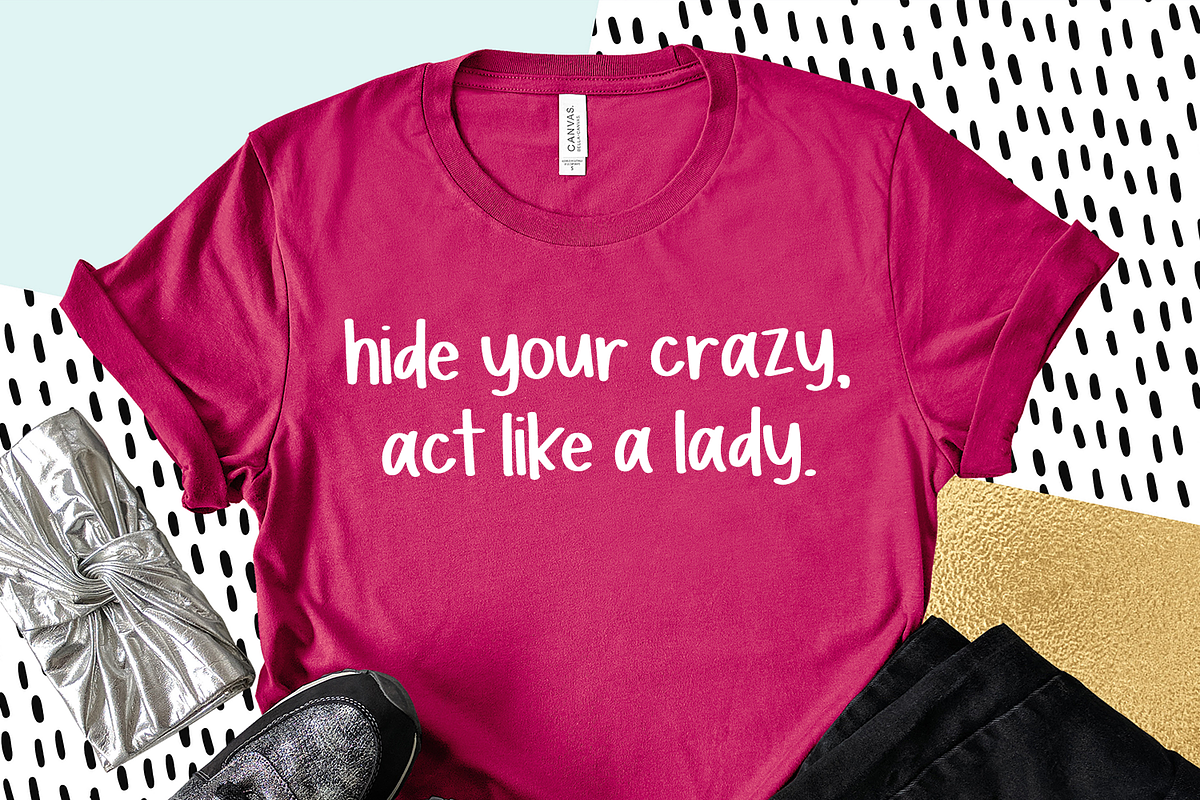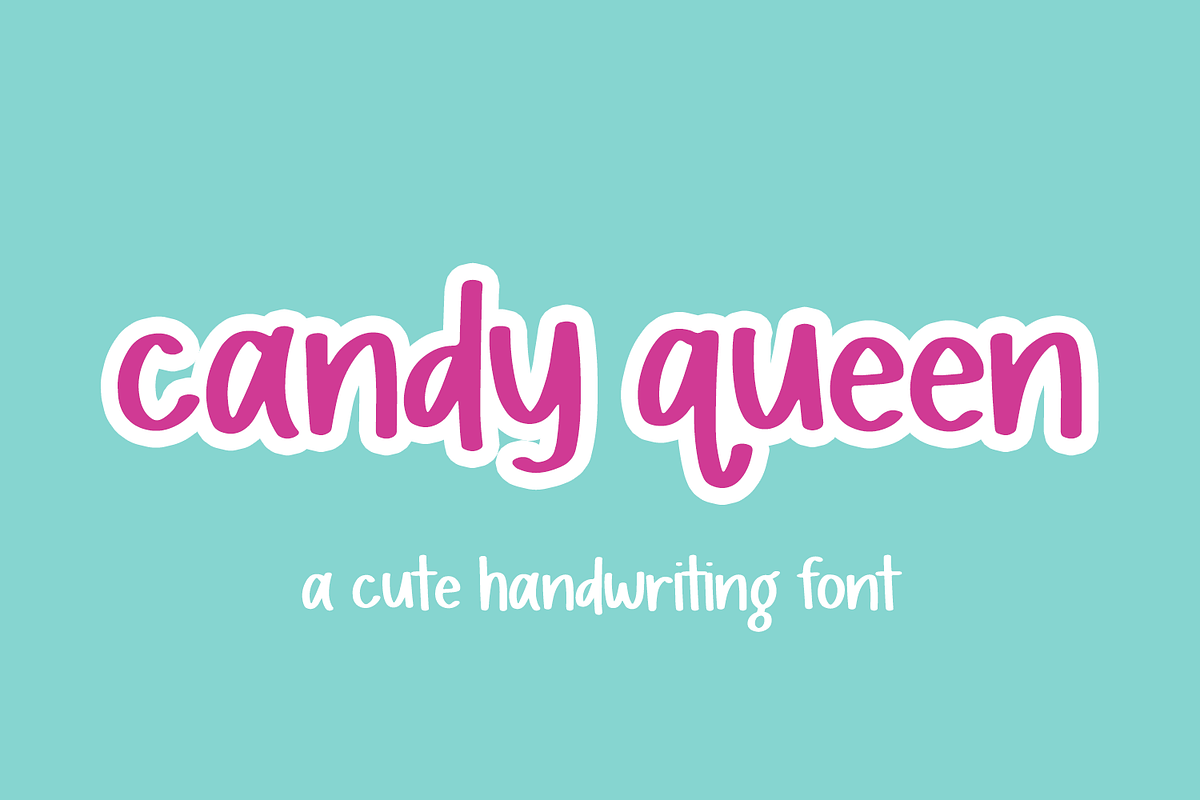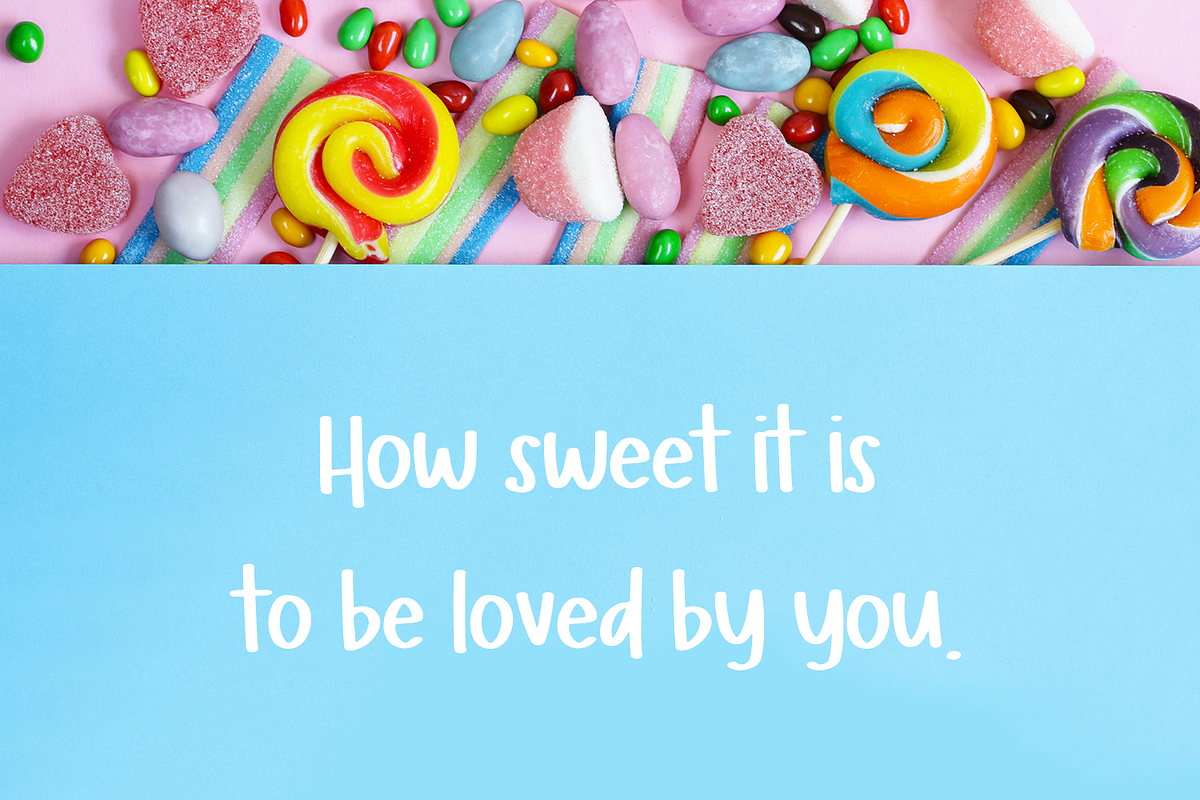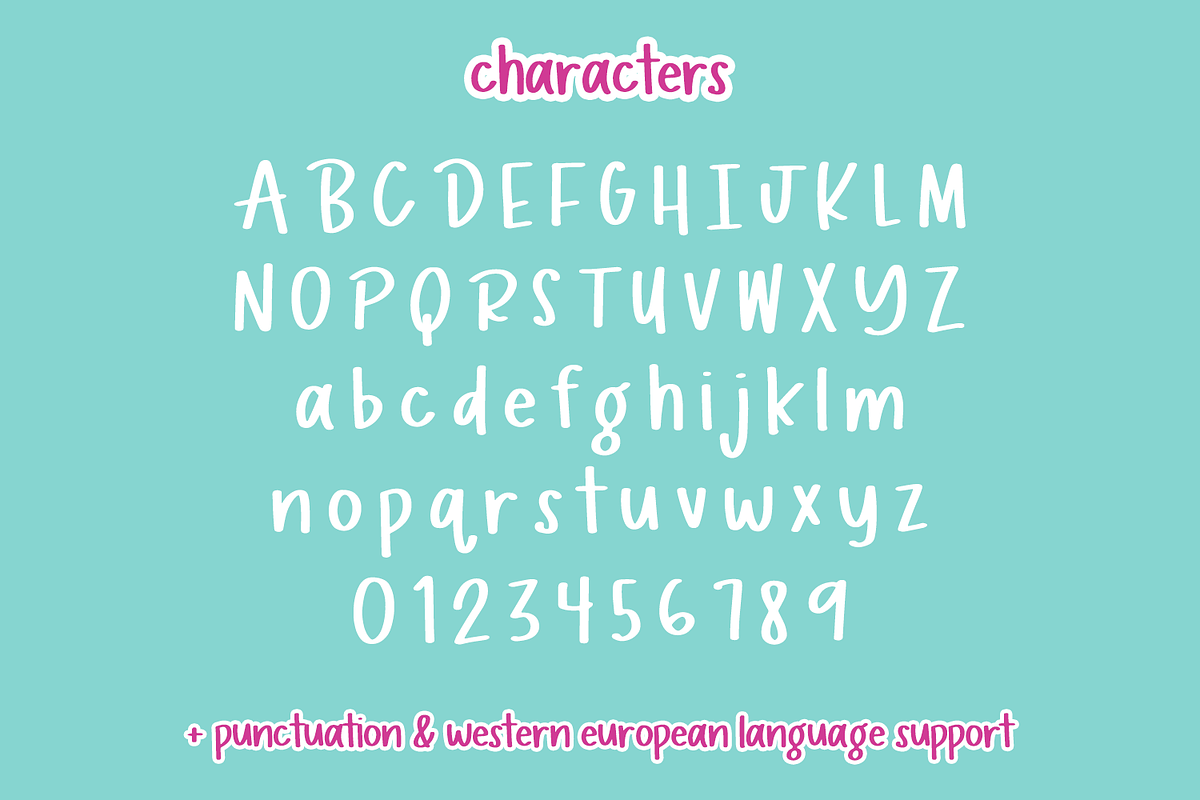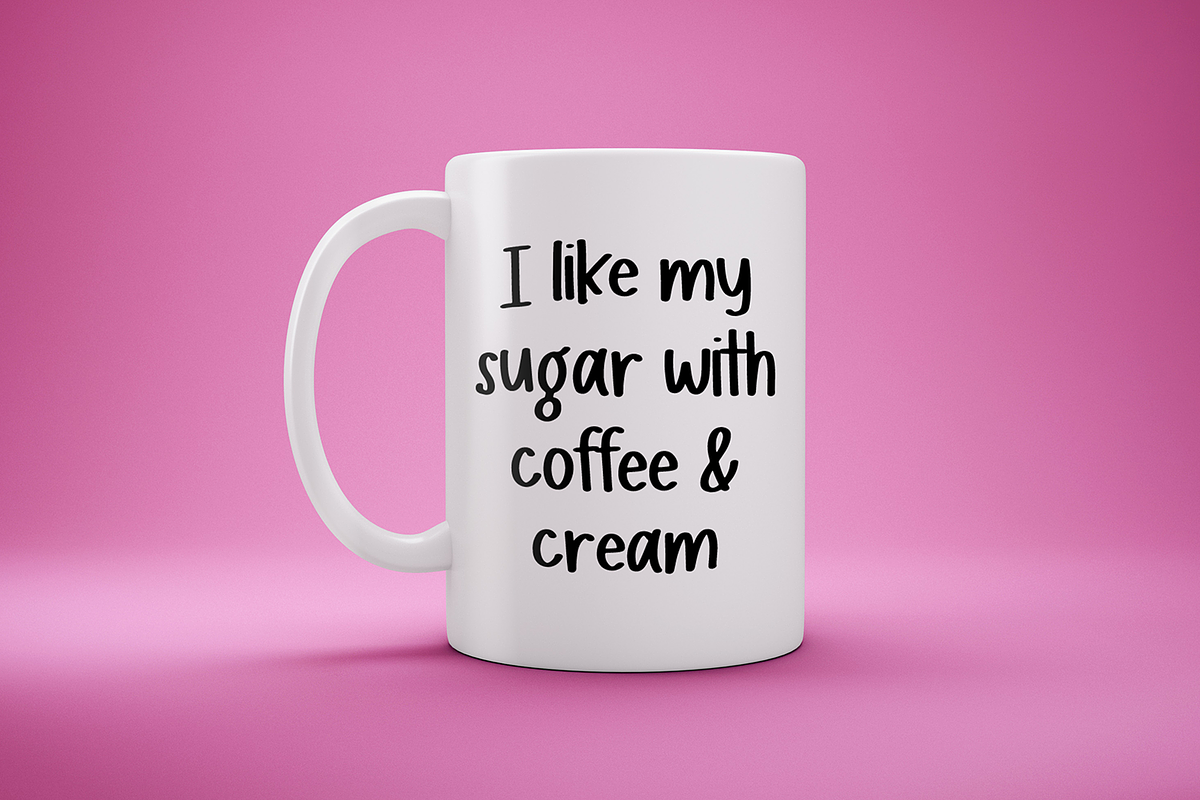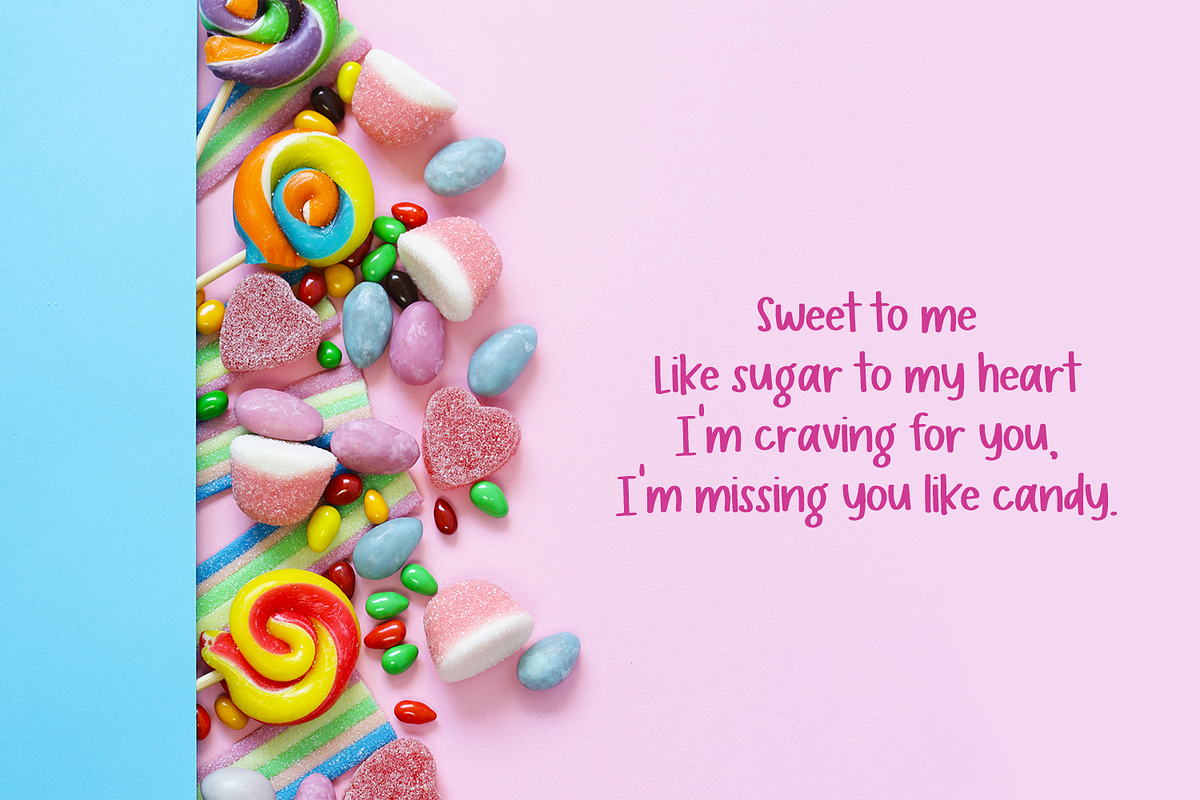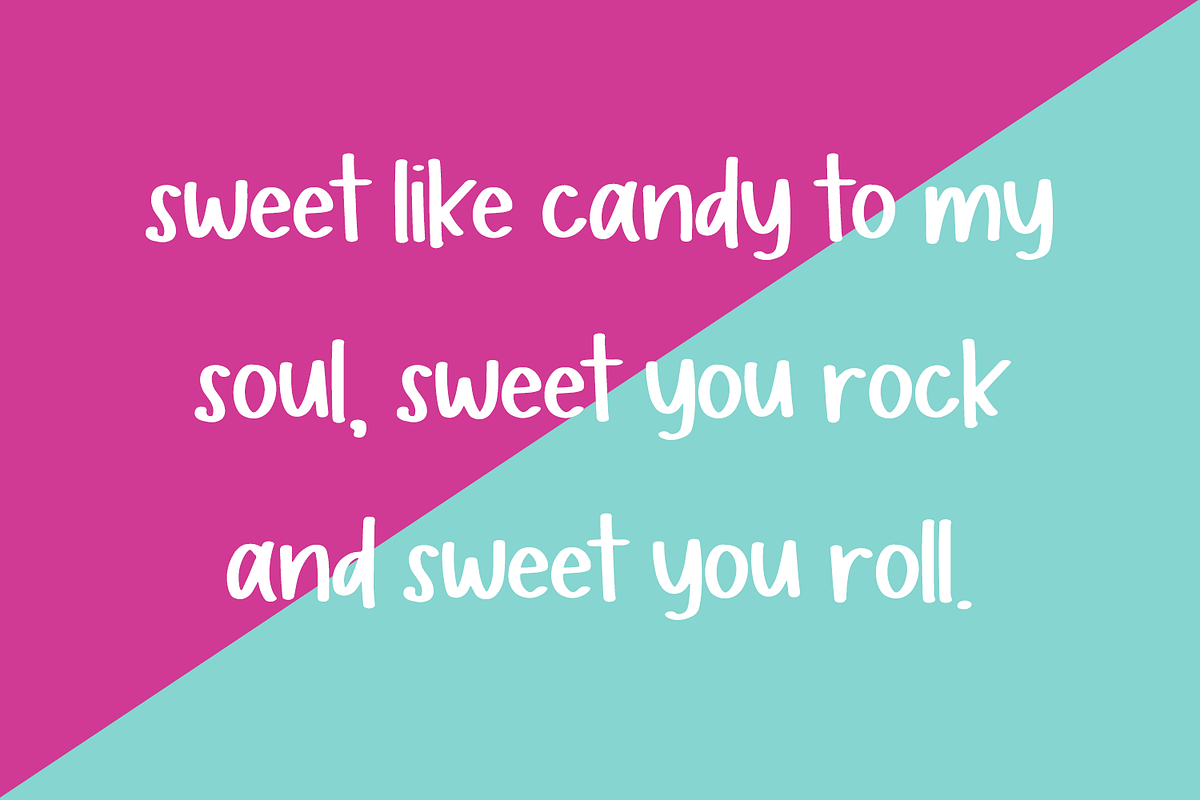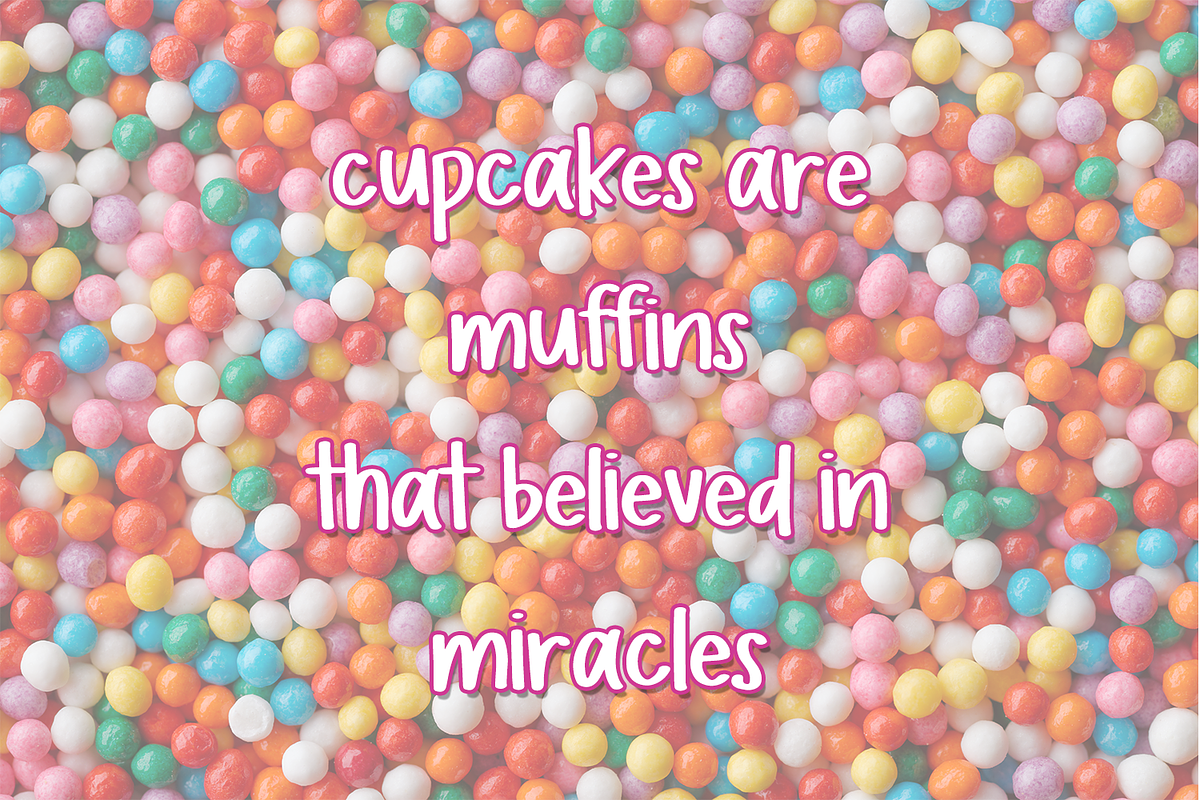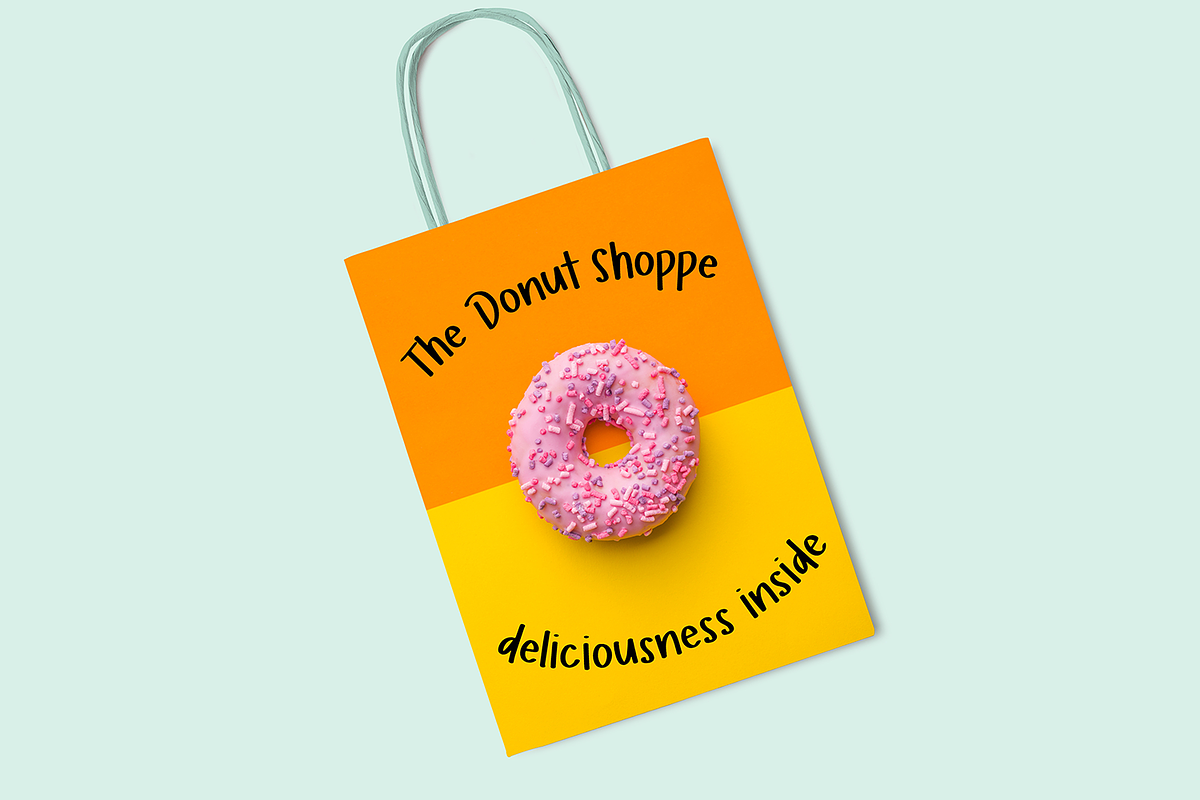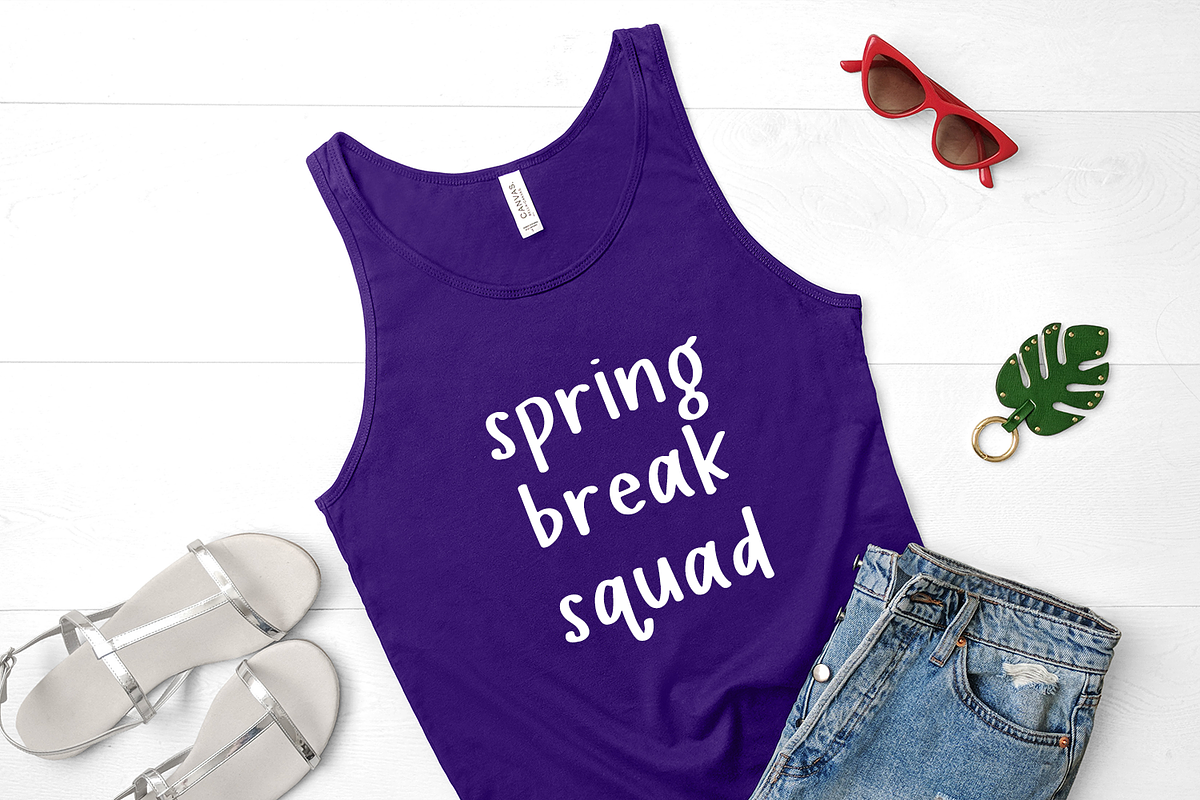
Candy Queen Sans
Introducing Candy Queen, a cute, clean sans font perfect for crafting, and whimsical child-centric projects. Its legibility makes it perfect for young children for school & classroom projects.
Candy Queen is best for:
- quote graphics for social media
- logos + branding for kid-centric brands
- design items like shirts, coffee mugs, & more
- Cricut and Silhouette projects
- other crafting projects
- school or classroom projects
Candy Queen Sans includes:
- full upper + lowercase characters
- numbers + punctuation
- Western European Language Support